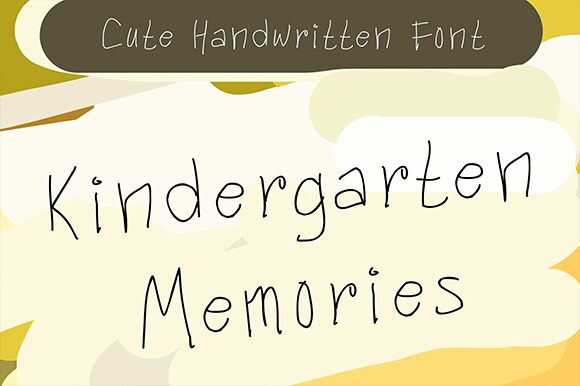
Kindergarten Memories is a new and cute handwritten font in a childs script style! This sans serif font is ideal for adding a kiddish vibe to your designs with tons of playful and intentional imperfections.
Kindergarten Memories